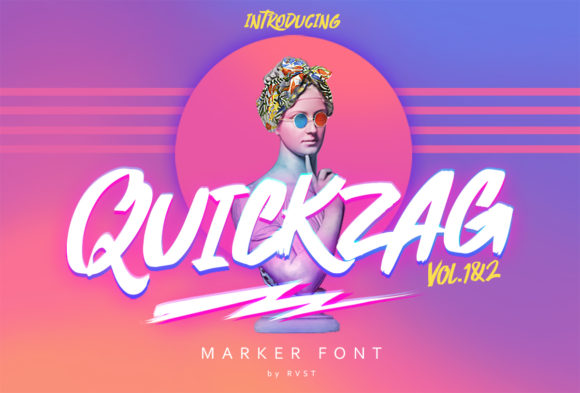
Introducing Quickzag Font - The Perfect Fusion of Energy and Elegance
Journey into the world of Quickzag Font, a hand-drawn marker typeface that exudes energy and elegance like no other. Its fast swipes and gentle attitude bring a captivating retro charm to your designs, evoking the nostalgic vibes of the 80s. Unleash your creativity and make your statement, product, poster, merchandise, logo, or brand stand out with a typeface that speaks volumes.
With Quickzag Font, you'll discover a font family that's as versatile as it is captivating. Its script style dances across your designs with a fluidity that will make your words come alive. Perfect for adding a touch of personality to your projects, Quickzag Font is the perfect choice for creating logos, posters, social media graphics, branding, and more.
Whether you're aiming for an energetic, retro, synth-wave aesthetic or a simple, clean look, Quickzag Font has you covered. Its diverse range of applications makes it a true all-rounder, capable of transforming any design into a work of art.